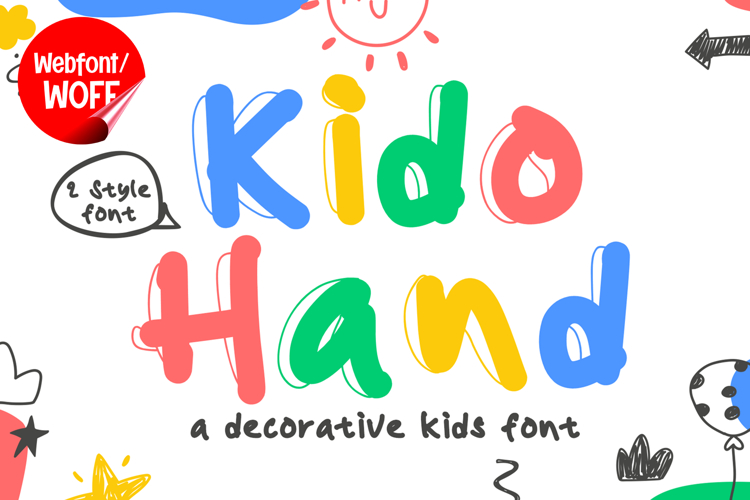
Kido Hand | Decorative Kids Handwritten Webfont for Fun idea
Kido Hand is a decorative kids handwritten webfont designed to bring playful creativity and cheerful energy into modern website design. Inspired by children’s doodles, classroom handwriting, and fun decorative lettering, this font features natural strokes and charming shapes that create a warm and lively visual identity. It is an excellent choice for projects that aim to deliver a cute, friendly, and engaging typographic style.
Kido Hand includes a complete set of uppercase characters designed with decorative handwritten aesthetics. The letterforms feature playful curves, natural movement, and hand-drawn details that create an authentic and creative appearance. These characteristics make it ideal for headlines, banners, hero sections, educational content, invitations, and featured content where a fun and cheerful atmosphere is needed.
In addition to letters, the font includes numbers and punctuation, allowing flexible usage across various parts of a website. It works well for kids’ websites, educational platforms, toy branding, birthday invitations, creative campaigns, and social media graphics. Each character maintains a consistent decorative handwritten style, ensuring a cohesive and unified visual identity throughout the design.
With multilingual support, Kido Hand includes a wide range of accented characters, making it suitable for international websites and global audiences. This ensures content remains clear and visually consistent across different languages while preserving the playful and artistic handwritten aesthetic.
The decorative kids handwritten style of Kido Hand makes it especially suitable for children’s brands, family-oriented websites, school projects, creative blogs, and playful digital campaigns. Its cheerful and expressive appearance creates a joyful atmosphere that helps websites stand out in visually competitive environments. The hand-drawn structure adds warmth and creativity while maintaining a clean visual balance.
Despite its decorative and playful appearance, Kido Hand is designed with readability in mind. The spacing and proportions are carefully balanced to ensure clarity, particularly in display sizes. This allows designers to use the font effectively for impactful headings and short content without sacrificing usability.
Kido Hand is a webfont that combines decorative handwritten aesthetics with modern digital performance. Its playful strokes, cheerful character, and creative style create a distinctive typographic presence that enhances website design. For projects that require a cute, fun, and visually engaging handwritten font, Kido Hand offers a versatile and delightful solution.